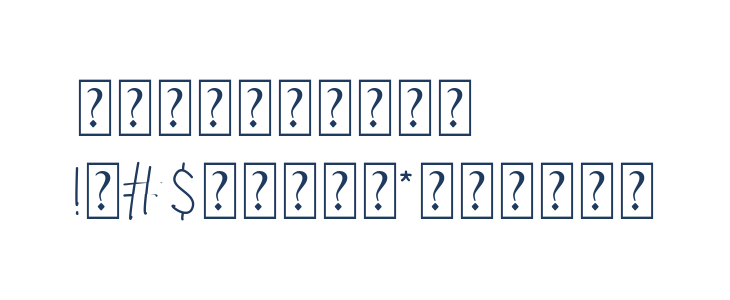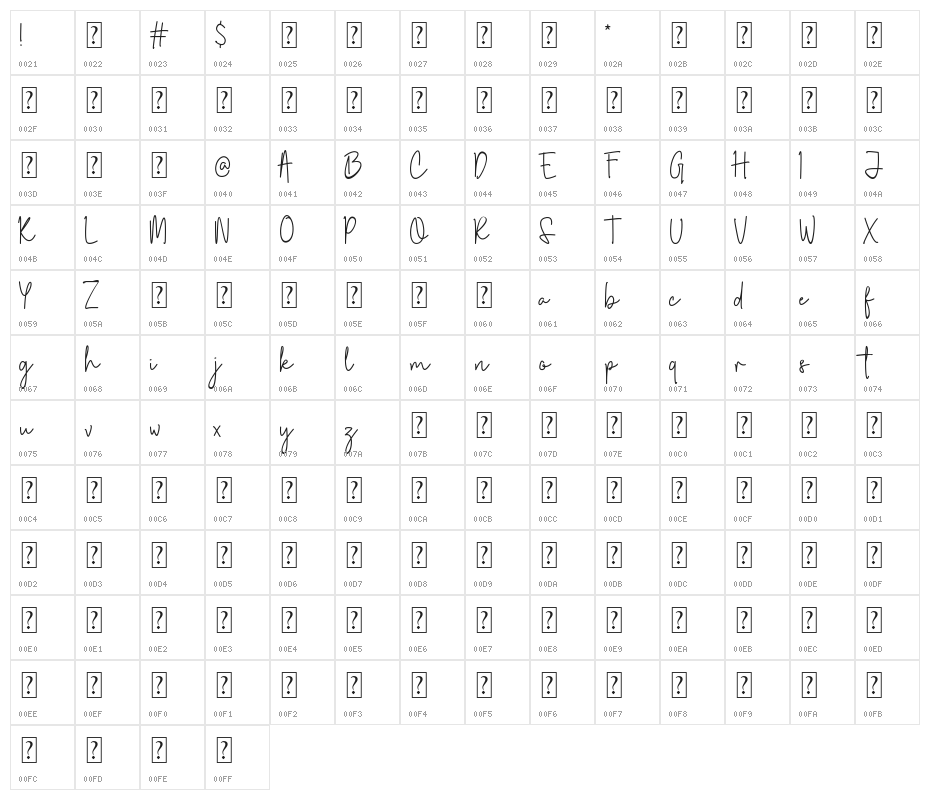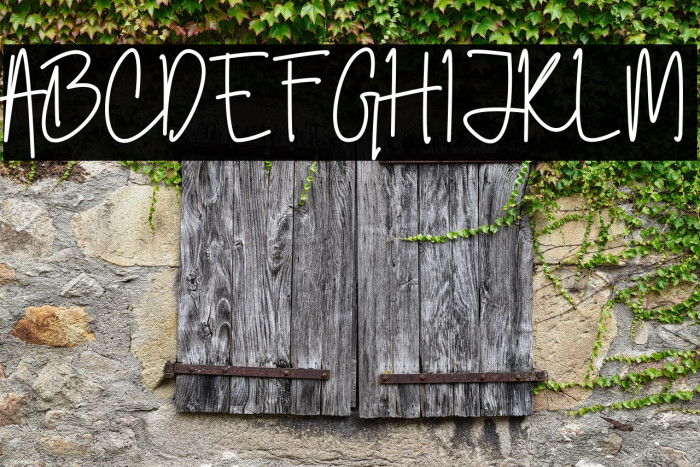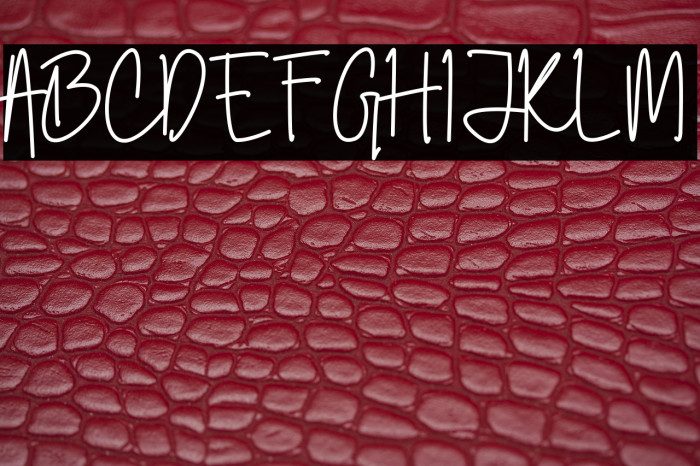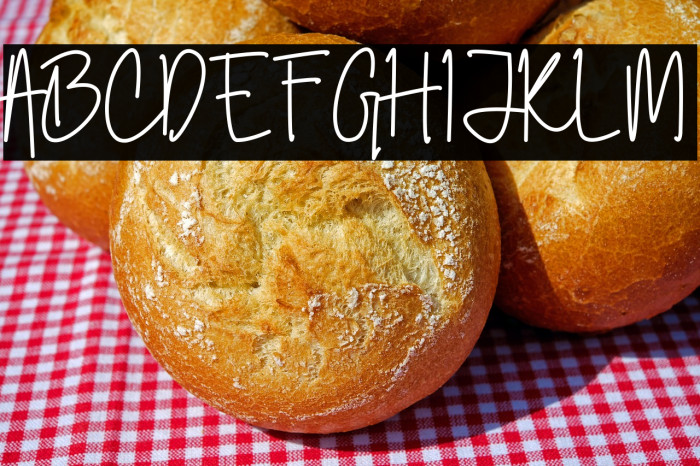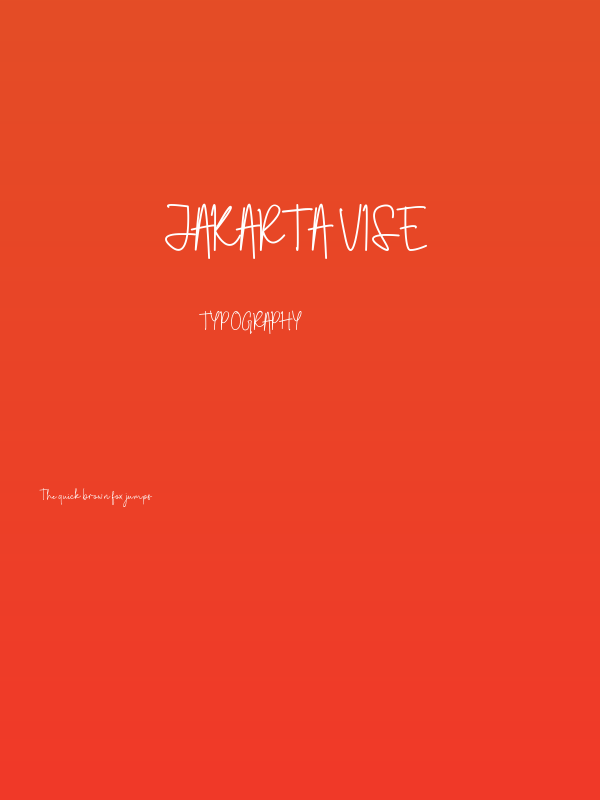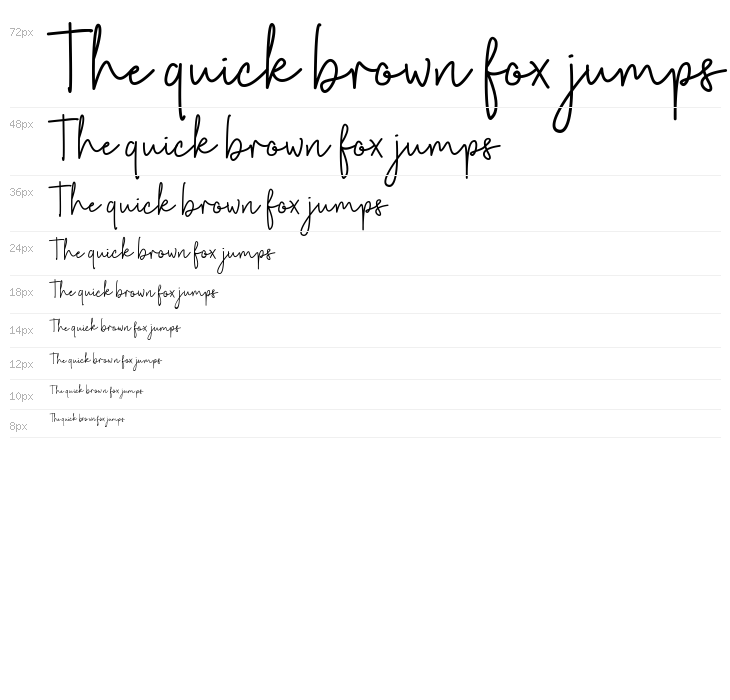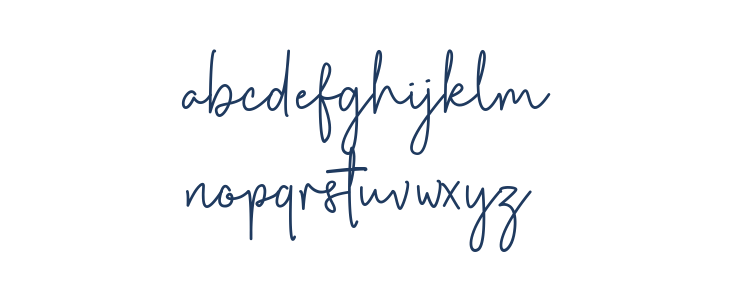
Jakarta Vise Font
Jakarta Vise Description
This font features a handwritten style with a casual and flowing appearance. The uppercase letters are tall and slightly narrow, with playful loops and curves that give a sense of movement. The lowercase letters maintain a consistent style, with smooth connections between strokes, enhancing the handwritten feel. The font has a modern and informal aesthetic, making it suitable for creative and personal projects. The characters are well-spaced, ensuring readability while maintaining the font's unique character. The overall style is both approachable and stylish, making it versatile for various design needs.
| Use Case | Logos, Headlines, Personal projects |
| Proposed Projects | Ideal for greeting cards, invitations, personal branding, and social media graphics. |